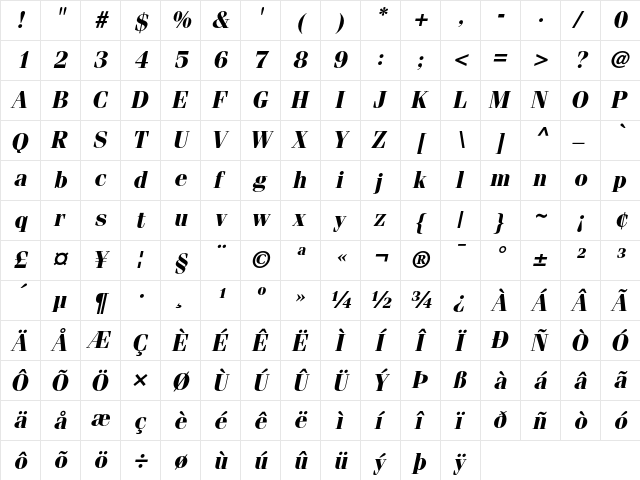
ITC Fenice Bold Oblique Font Preview
Design Context for ITC Fenice Typeface
ITC Fenice takes a measured approach to typography — its balanced proportions and neutral character make it a reliable workhorse for both digital and print work. Its italic angle brings a sense of urgency and motion to the letterforms. The heavy weight commands attention and anchors typographic hierarchies.
Pro Tip: Try ITC Fenice for annotation and caption copy alongside an upright companion — the contrast in angle creates a dynamic but ordered typographic system.